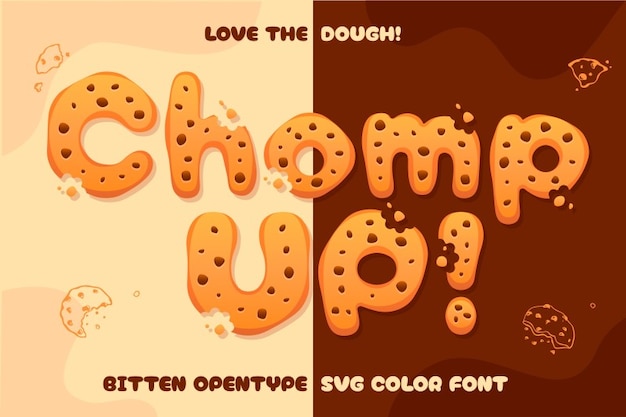
Chomp Up is a sweet, rounded font with playful bite marks that give it a fun, cookie-inspired charm. Each letter feels soft and tasty, perfect for bakery branding, kids' menus, or snack packaging. With its friendly curves and delicious details, Chomp Up adds a touch of flavor and whimsy to every design